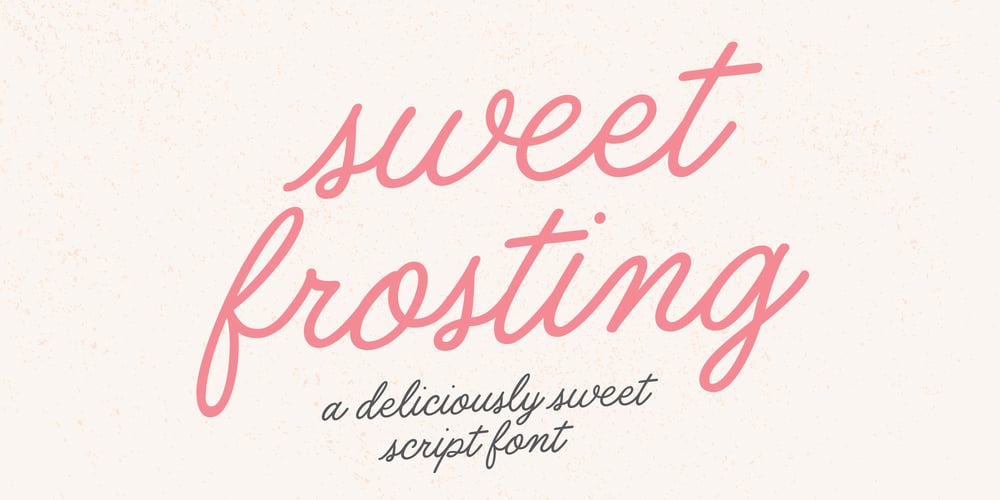
Sweet Frosting Font Family was designed by Danielle Edwards and published by Danielle Eneh. Sweet Frosting contains 1 styles and family package options. Sweet Frosting is a cute script font designed to be reminiscent of a script from a handwritten menu or sign. It will add a quirky, fun but still elegant touch to your designs. The smooth edges create a clean look for your modern design projects. It’s perfect for branding projects, social media posts, product packaging, product designs, labels, and invitations.Sweet Frosting comes with 297 glyphs- including 2 uppercase sets, lowercase, numerals, punctuation and includes 16 ligatures for a more natural handwritten feel.OPENTYPE: Sweet Frosting is an opentype font and recommended for programs that support opentype features such as Adobe Illustrator, Adobe Photoshop, Adobe Indesign, Pages, Word. Please make sure you know how to access these features before purchasing.➤ What’s Included❤ 297 glyphs — 2 Uppercase sets, lowercase, numbers, symbols, punctuation, 16 styled ligatures❤ Multilingual Support : AÀÁÂÃÄÅCÇDÐEÈÉÊËIÌÍÎÏNÑOØÒÓÔÕÖUÙÜÚÛWYÝŸỲŸÆŒßÞþ